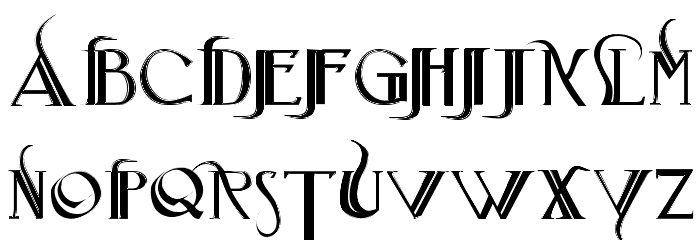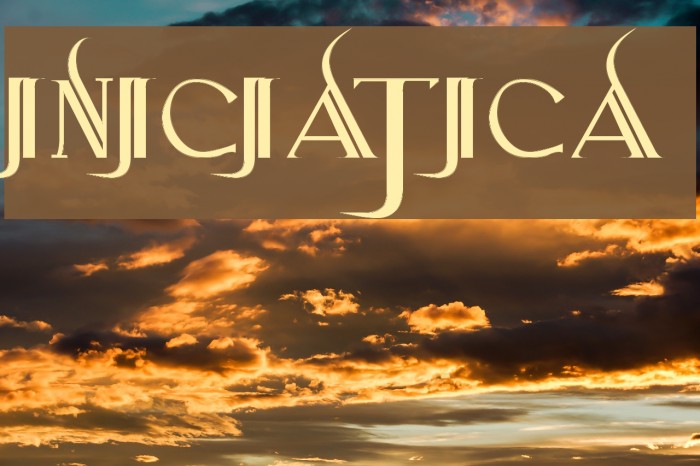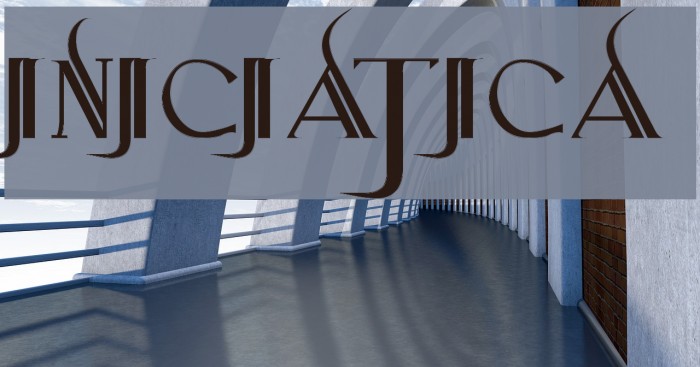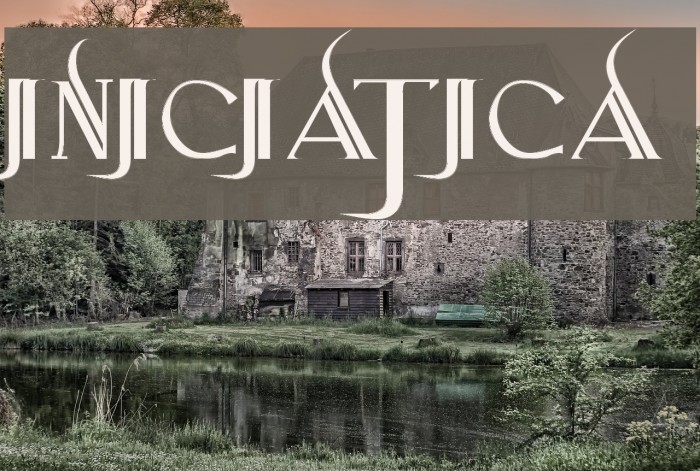
Iniciatica Font
This font features a unique and artistic design with elaborate, decorative elements. The uppercase letters have a distinct flair, with sharp, angular lines and occasional curved extensions that add a sense of movement and elegance. The lowercase letters maintain a consistent style, echoing the ornate nature of the uppercase set. The numbers are stylized to match the overall aesthetic, ensuring a cohesive look. The special characters are intricately designed, complementing the font's artistic theme. This font is ideal for projects that require a touch of sophistication and creativity.
An artistic and decorative font with elaborate, angular designs.
- Font: Iniciatica
- Proposed Projects: Ideal for branding, invitations, posters, and artistic projects that require a sophisticated and creative touch.
- Use Case: Logos, Headlines, Artistic projects